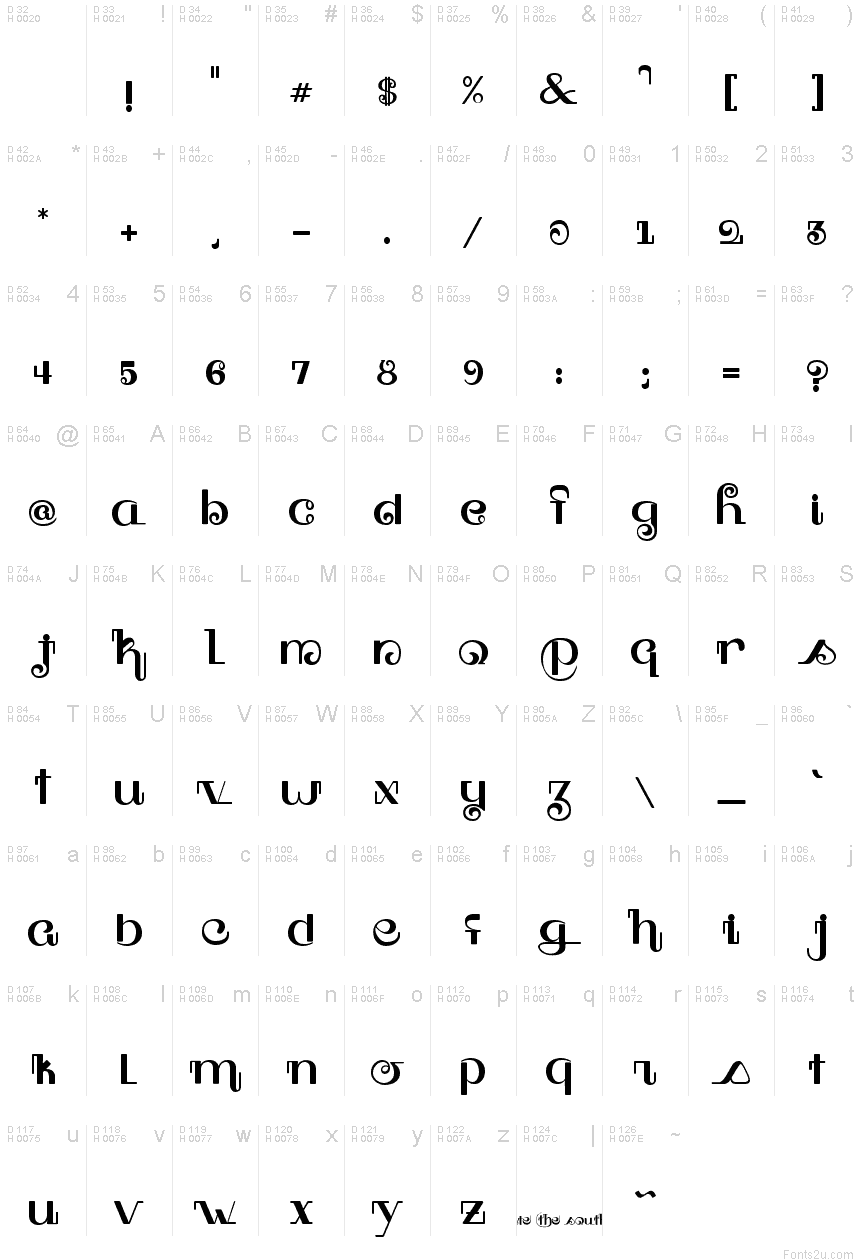
SouthPacific
Inspired on a phrase using south pacific lettering imitation taken from: The ABC of Lettering by J.I. Biegeleisen. Harper & Row Publishers NY 1965. ISDN 65-14683.